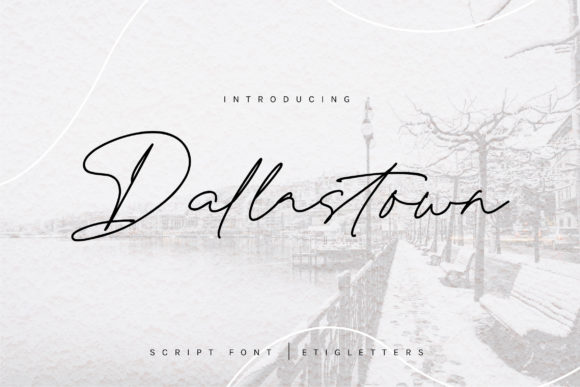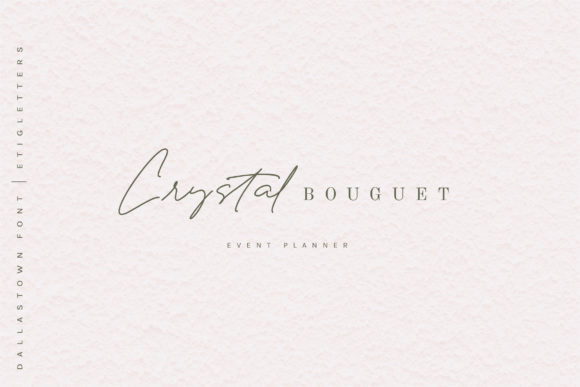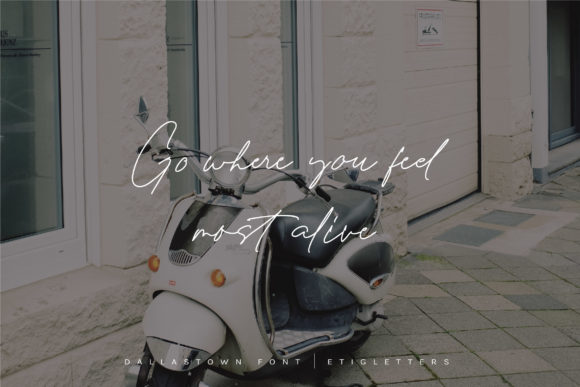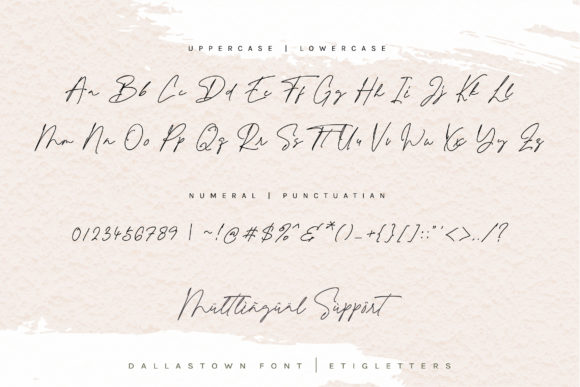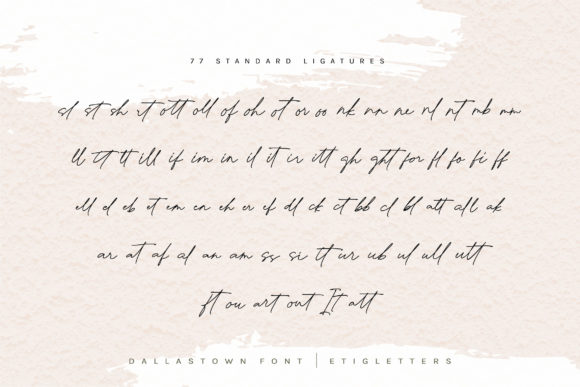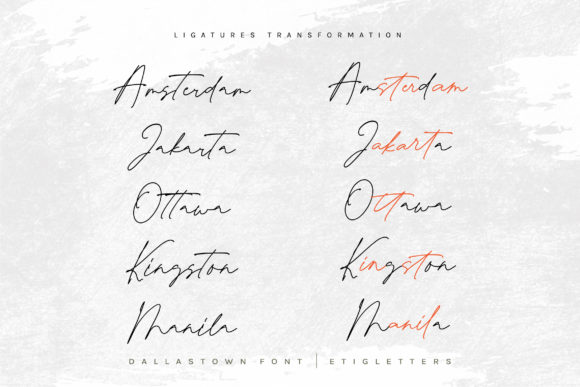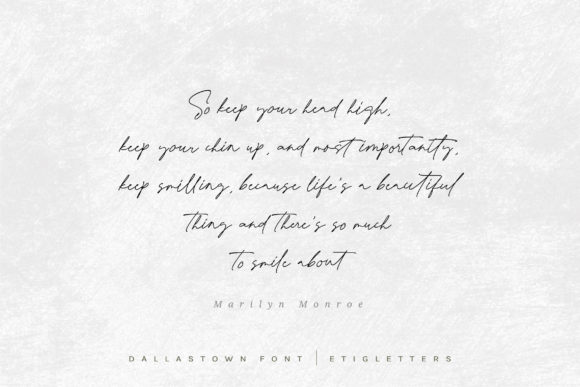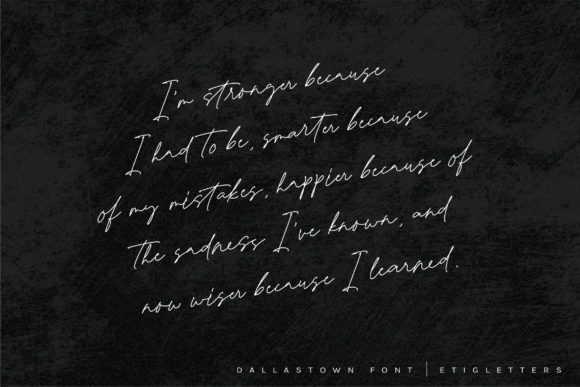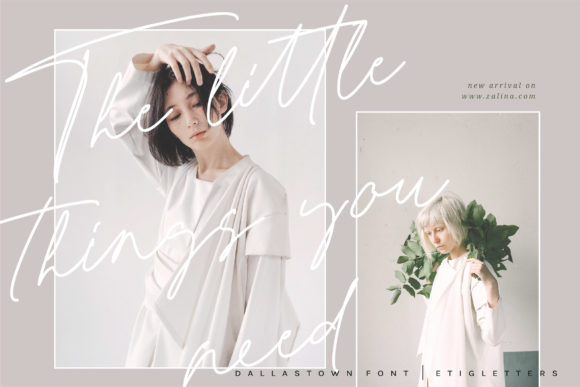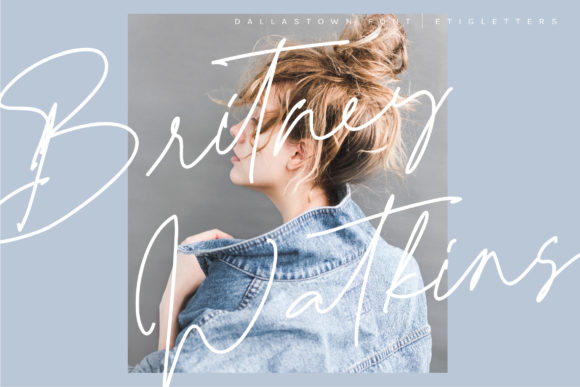
Dallastown Font
About Dallastown Font
Dallastown is a flowing and incredibly relaxed handwritten font. It is PUA encoded which means you can access all of the glyphs and swashes with ease! It features a varying baseline, smooth lines, gorgeous glyphs and stunning alternates. It maintains its classy calligraphic influences while feeling contemporary and fresh. Fall in love with Dallastown and bring your projects to the highest levels!